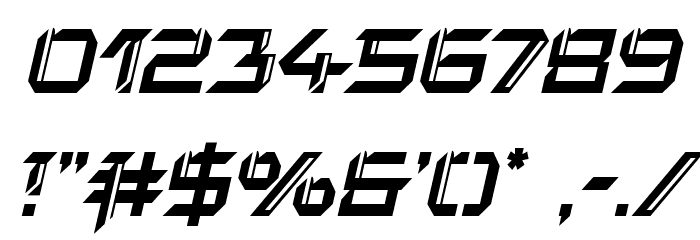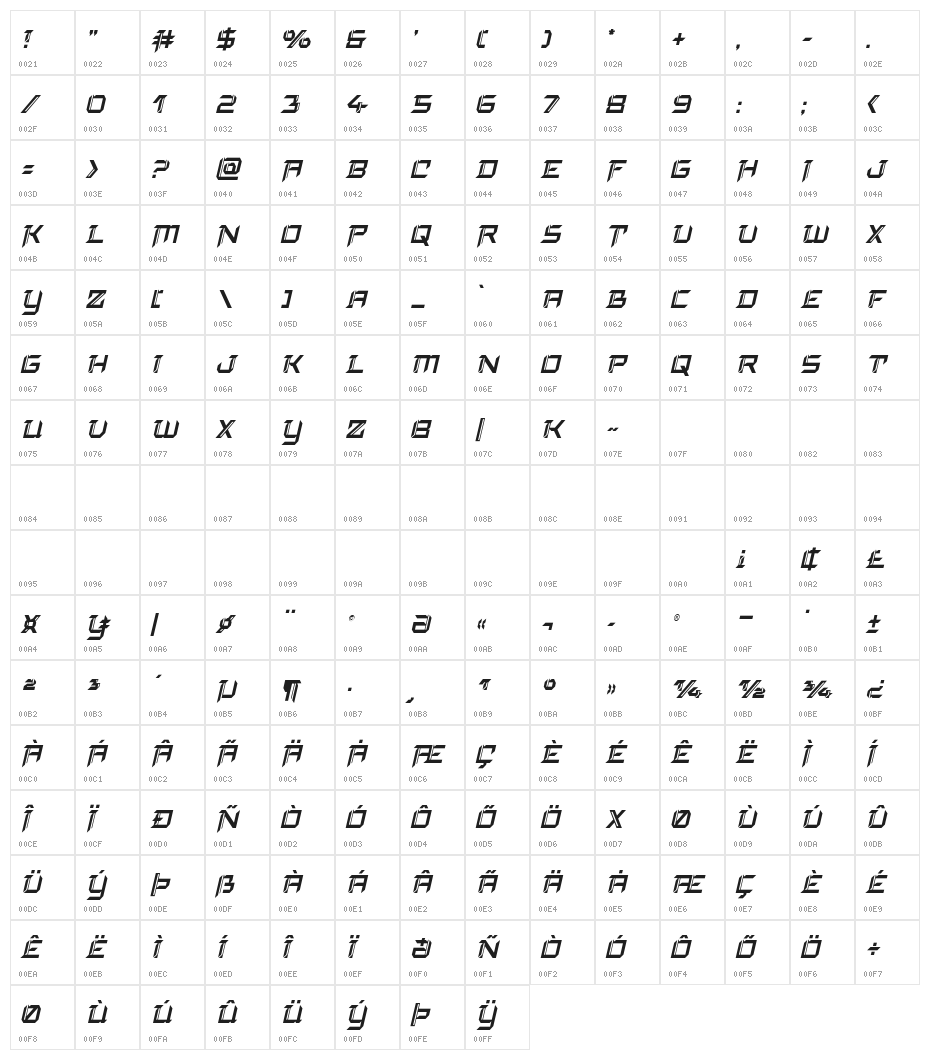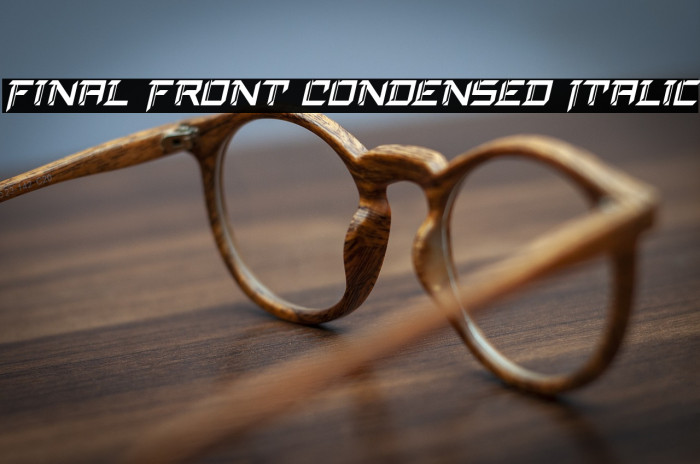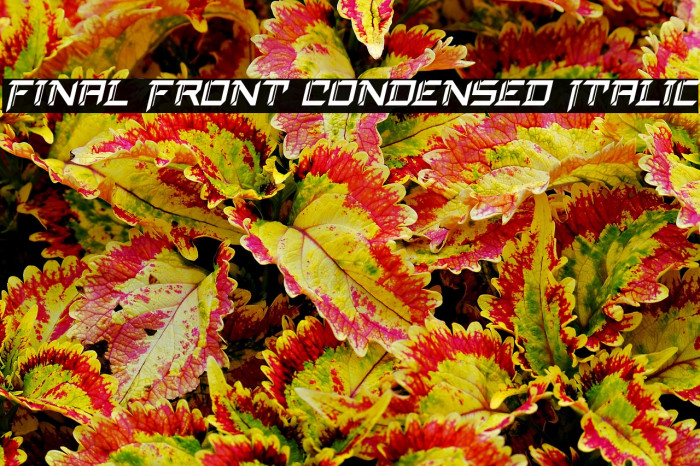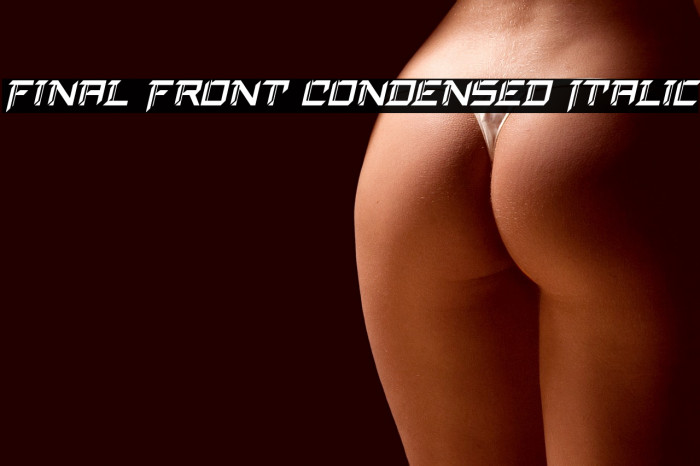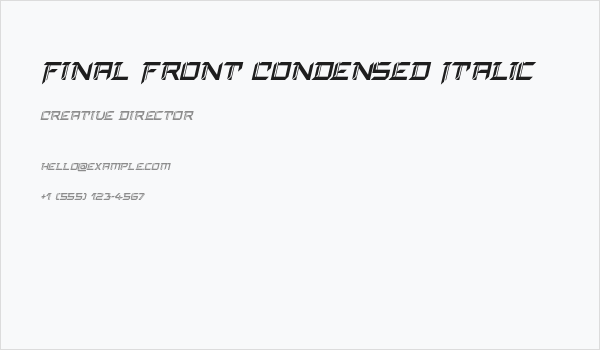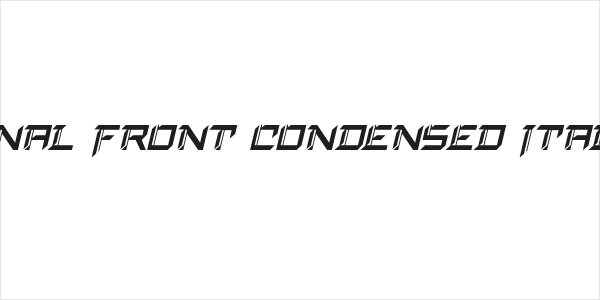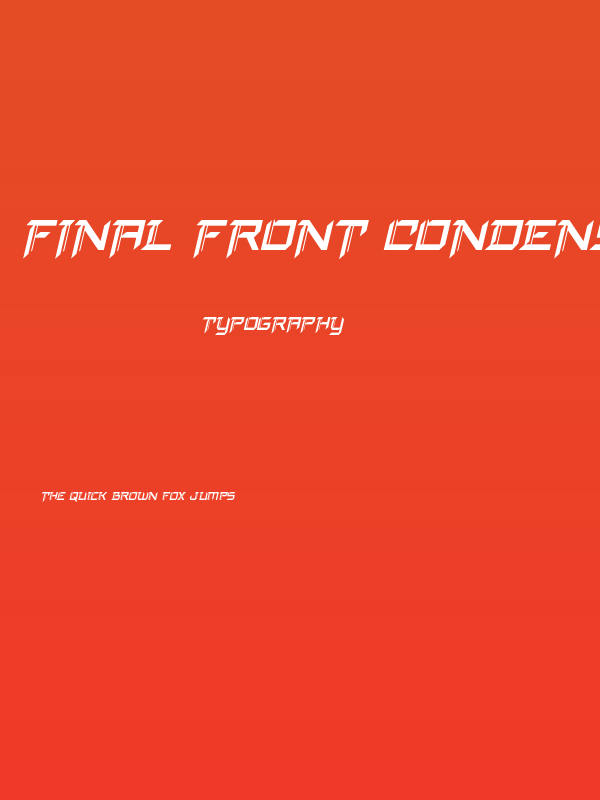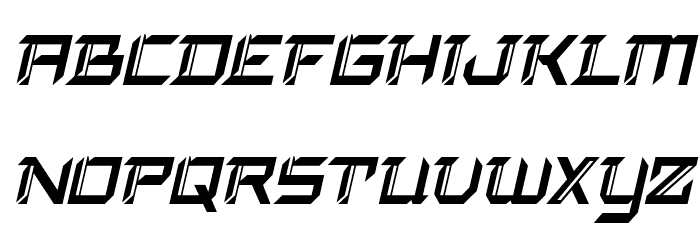
Final Front Condensed Italic Font
Final Front Condensed Italic Description
This font features a futuristic and dynamic design, characterized by sharp angles and a condensed form. The italic style adds a sense of motion and speed, making it ideal for projects that require a modern and edgy look. The uppercase and lowercase letters maintain a consistent style, with distinct geometric cuts that enhance its bold appearance. The numbers and special characters follow the same angular theme, ensuring uniformity across all elements. This font is particularly suitable for branding, sports-related designs, and any creative work that aims to convey a sense of innovation and forward-thinking.
| Use Case | Logos, Headlines, Branding |
| Proposed Projects | Ideal for sports branding, futuristic designs, tech-related projects, and dynamic advertising. |